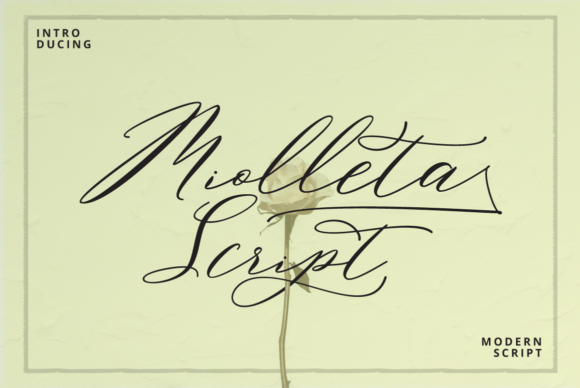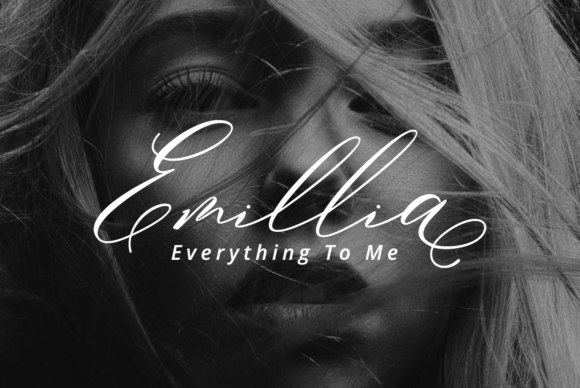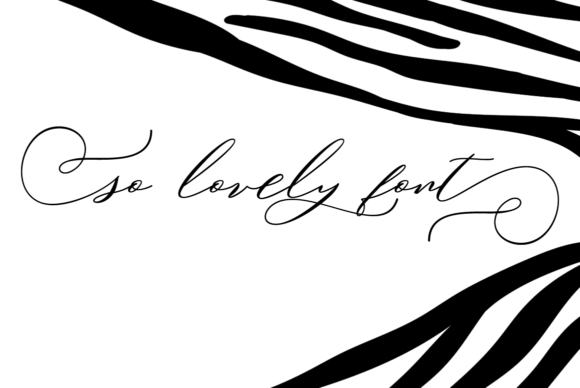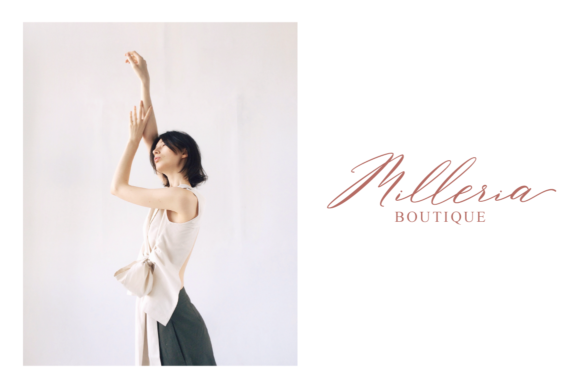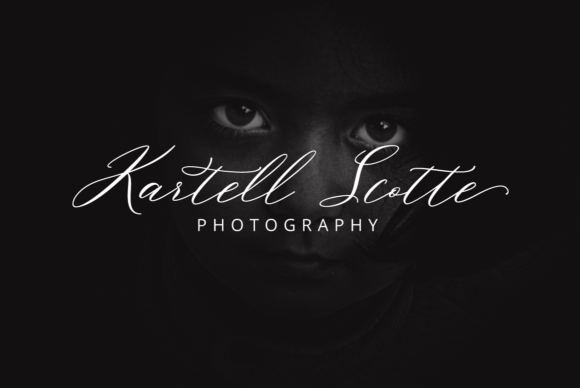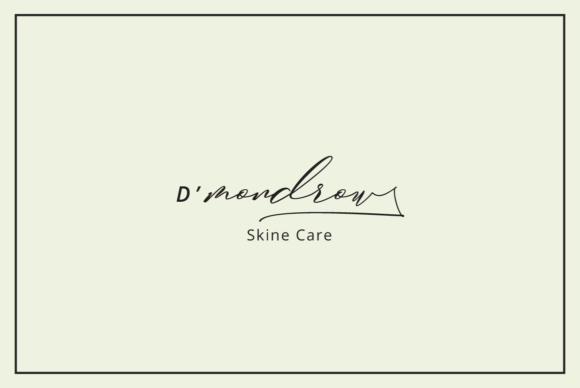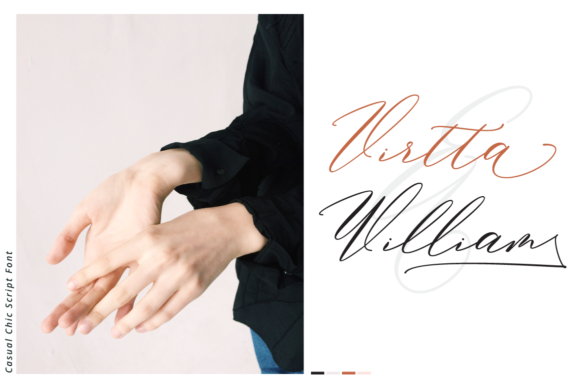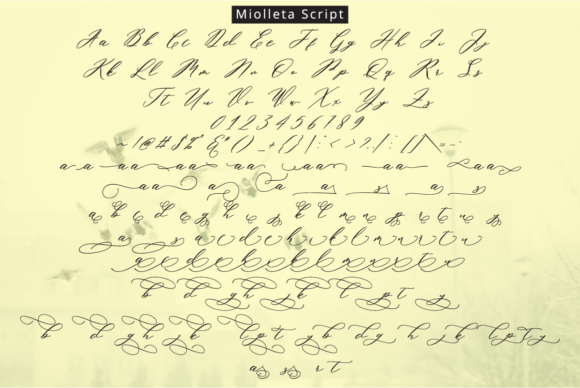
Miolleta Script Font
About Miolleta Script Font
The Miolleta is an unique blend of a classic and modern font. It has an imperfect style with ups and downs and includes a dancing baseline.
Its clean and simple style is perfect for weddings, invitations, escort cards, table numbers, header menus, display, logos, slider blog, custom addresses, stamps, packaging, greeting cards, and much more!